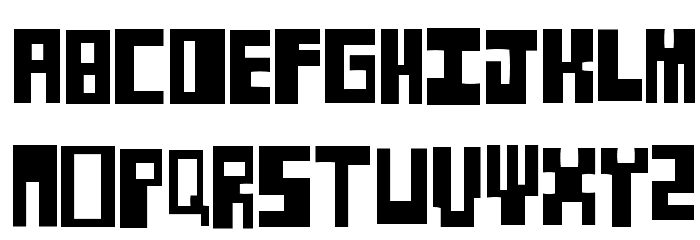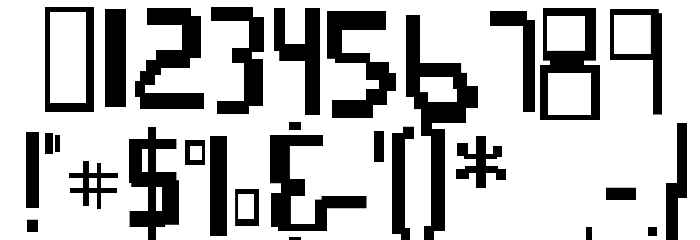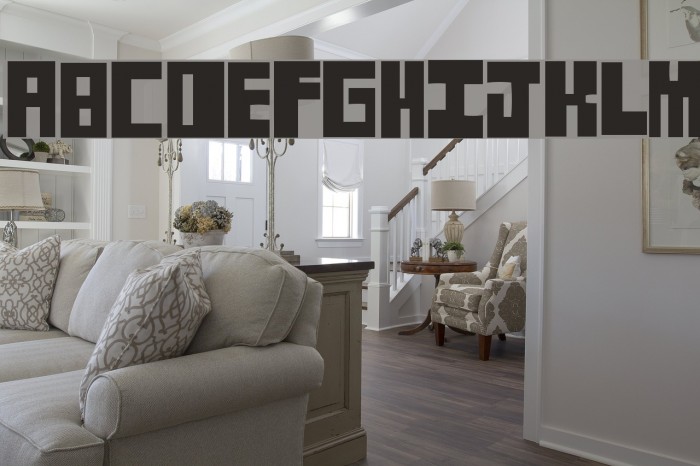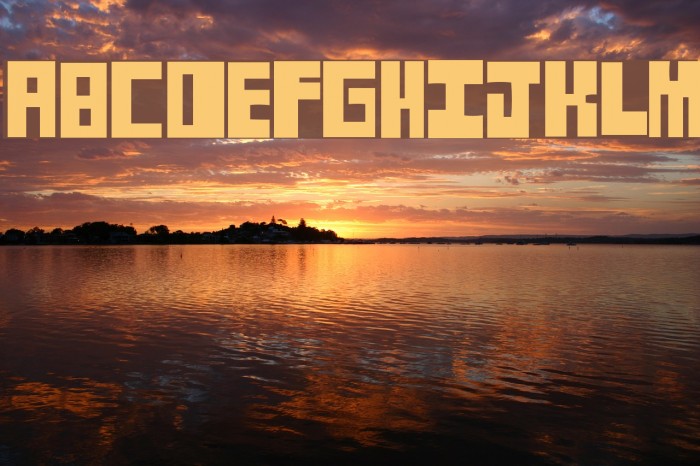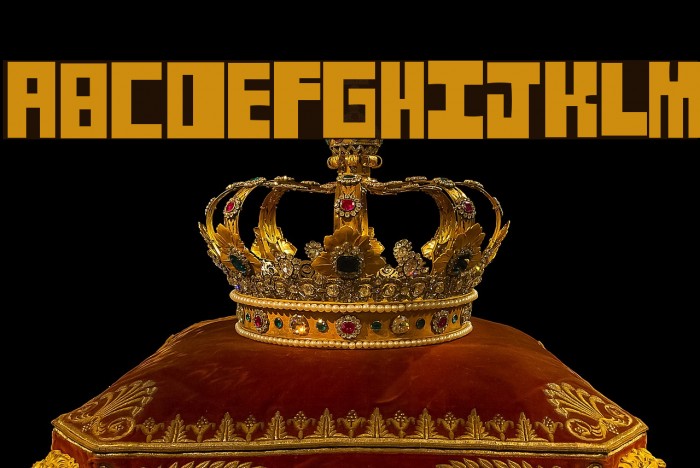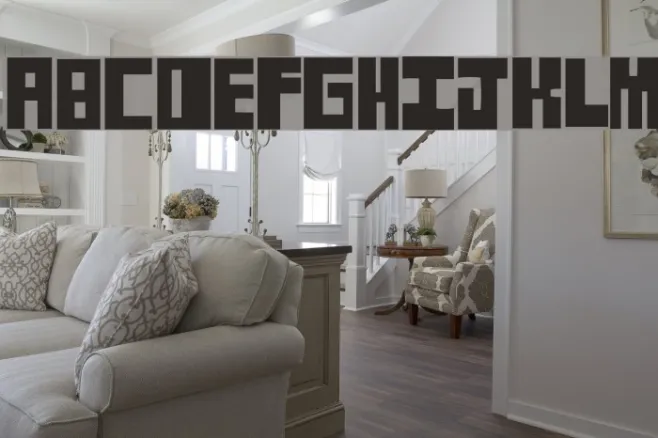
cokla Font
This font features a bold, geometric design with a distinctly digital or pixelated aesthetic. Each character is constructed with sharp, angular lines and uniform stroke widths, creating a blocky and robust appearance. The uppercase and lowercase letters maintain a consistent height, contributing to a cohesive and structured look. The numerals and special characters follow the same design principles, ensuring uniformity across all glyphs. This font's style is reminiscent of early digital displays or retro video game graphics, making it ideal for projects that require a nostalgic or tech-inspired feel.
A bold, geometric font with a pixelated, digital aesthetic.
- Proposed Projects: Ideal for retro video game designs, tech-themed posters, digital art projects, and branding that requires a bold, nostalgic touch.
- Overall Style: Retro, Digital